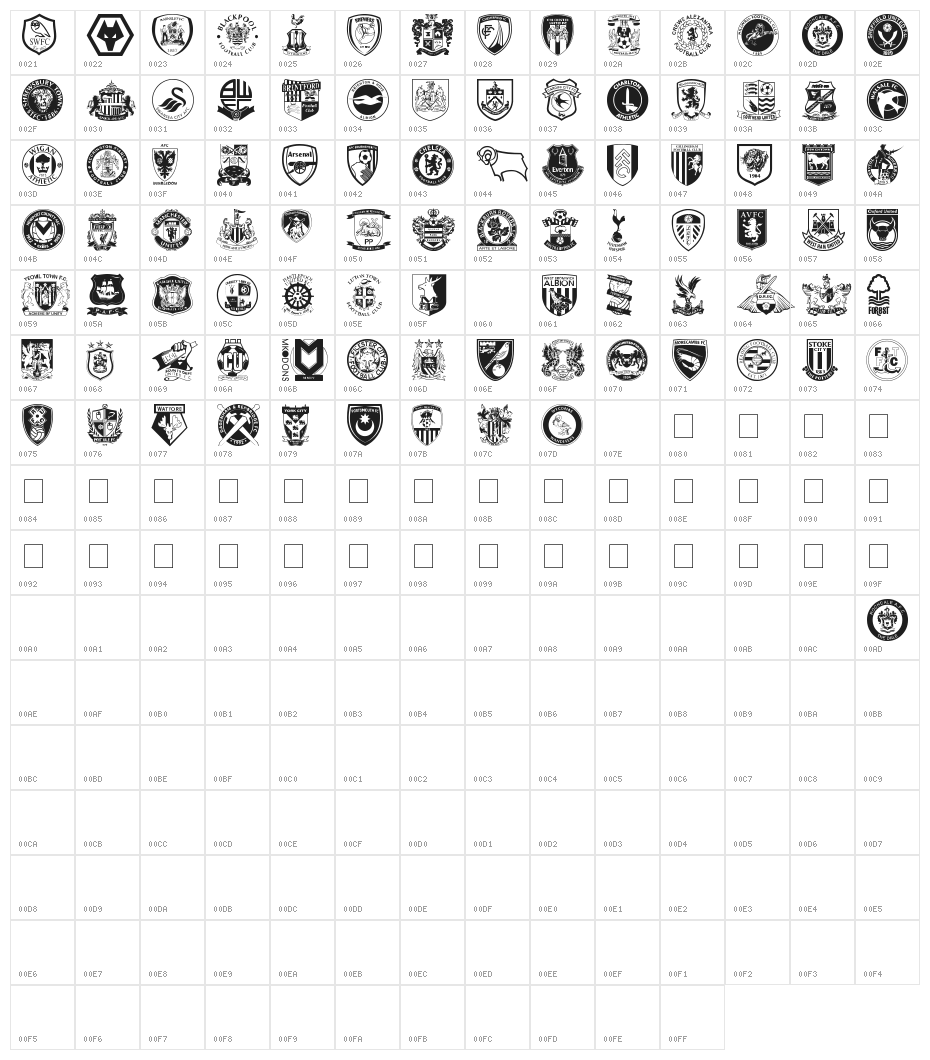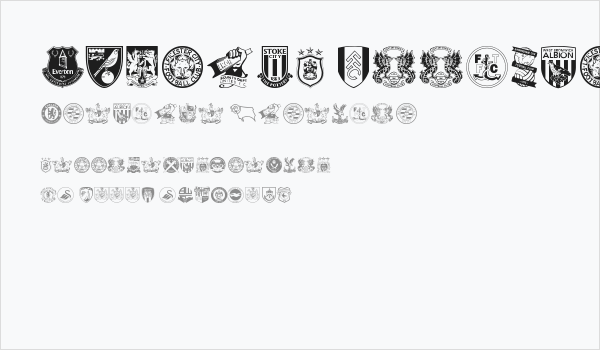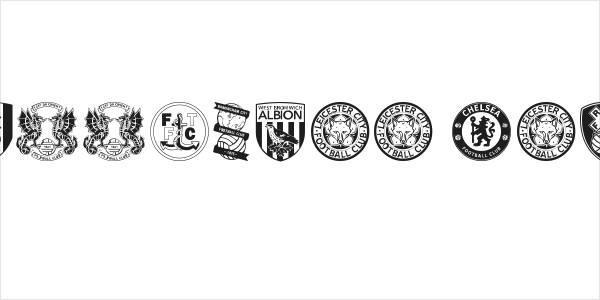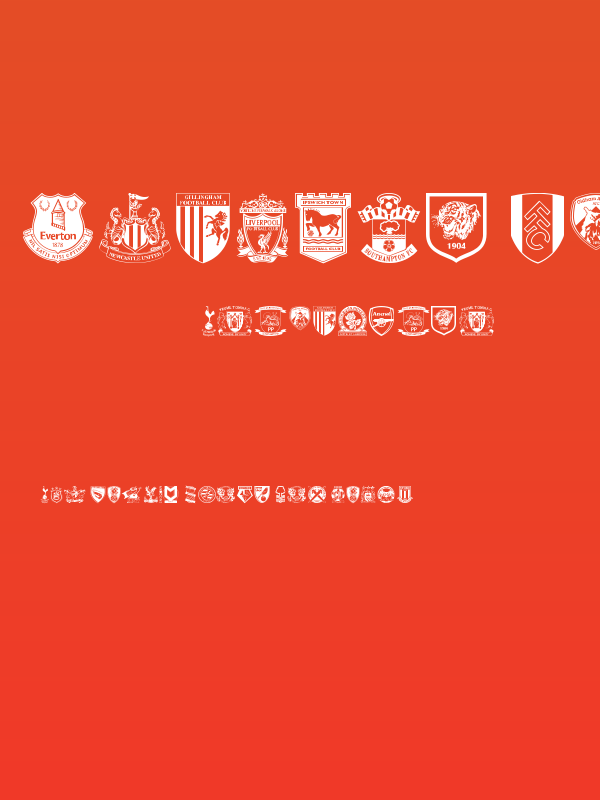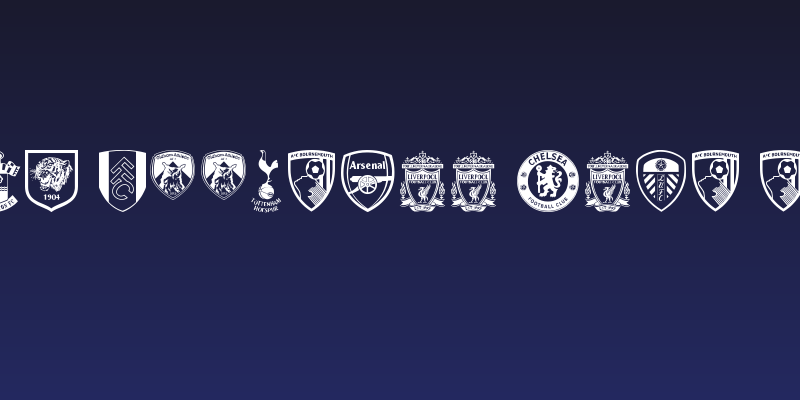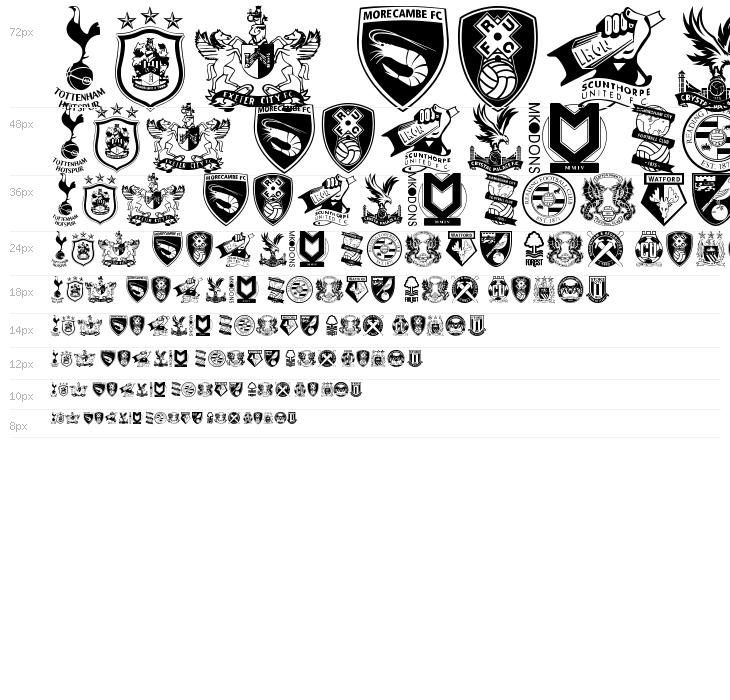
English Football Club Badges Font
English Football Club Badges Description
A collection of English football club badges featuring a variety of heraldic and emblematic designs, including shields, animals, symbols, and text elements. The badges are highly detailed and vary in style from traditional to modern, often incorporating intricate line work and iconic imagery representing each club's identity.
| Overall Style | Traditional and modern heraldic |
| Use Case | Logos, merchandise, sports branding, and fan materials |
| Proposed Projects | Sports branding, football-related merchandise, fan memorabilia, sports publications, and digital media related to football clubs. |